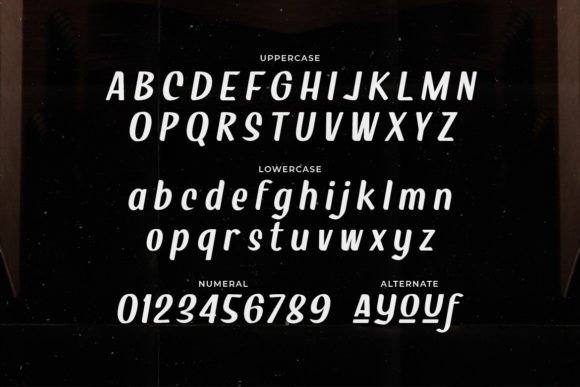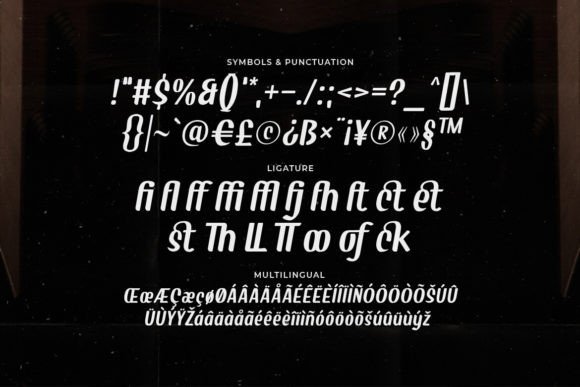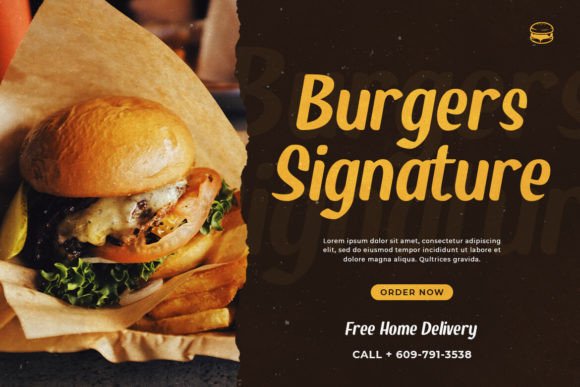
Introduction to Shalbie Font
Have you ever been working on a creative project, and suddenly, you need that one perfect font to elevate your design and make it truly stand out? For designers, this is a moment of pure magic – the moment when everything comes together, and your vision becomes a reality. For me, this moment arrived when I discovered the Shalbie Font, a high-quality font style that has been a game-changer in my design process.
What I love about the Shalbie Font is its bold and expressive letterforms, which make a striking statement in any project. With its perfect blend of boldness and creativity, this design resource is ideal for eye-catching posters, dynamic signage, modern branding, and more. Plus, with a free download available, it’s become an essential tool in my creative arsenal.
Whether you’re working on a large-scale project or a small design task, the Shalbie Font is a valuable addition to any designer’s toolkit. Its transparent background makes it easy to work with, and its versatility ensures that it will be a reliable design companion for years to come.
Key Features of Shalbie Font
- High-quality, free download font suitable for various creative projects.
- Comes with a transparent background, making it easy to integrate into design resources.
- Features a unique and stylish design, perfect for adding a touch of elegance to your work.
- Supports a wide range of languages and characters, making it a versatile design resource.
- Suitable for use in various design applications, including graphic design, digital art, and print media.
Honest Review: Shalbie Font
I recently stumbled upon the Shalbie Font while searching for a high-quality design resource for my creative project. As a designer, I’m always on the lookout for unique and versatile fonts that can elevate my work. In this review, I’ll share my honest thoughts on this free download.
What works well: ✨ The Shalbie Font has a beautiful, elegant design that’s perfect for luxury branding and high-end marketing materials. Its transparent background makes it easy to pair with any image or color scheme. I also appreciate the variety of font weights and styles available, which gives me plenty of options for customizing my designs.
Overall, I’m impressed with the Shalbie Font and would definitely recommend it to designers looking for a high-quality, free design resource. With its versatility and elegant design, it’s a great addition to any creative project.
Key features:
- High-quality design perfect for luxury branding
- Transparent background for easy pairing with images or colors
- Variety of font weights and styles available
Designing with Shalbie Font
When using Shalbie Font, consider using it on a transparent background to create a high-quality design. You can also use it in combination with other design elements, such as graphics and images, to create a unique and creative project. Tips for getting the most out of Shalbie Font include experimenting with different font sizes and colors, and using it in conjunction with other design resources.
Shalbie Font is commonly used in design projects that require a high-quality, elegant font. Some common use cases include creating logos, brochures, and business cards, as well as designing presentations and social media graphics.